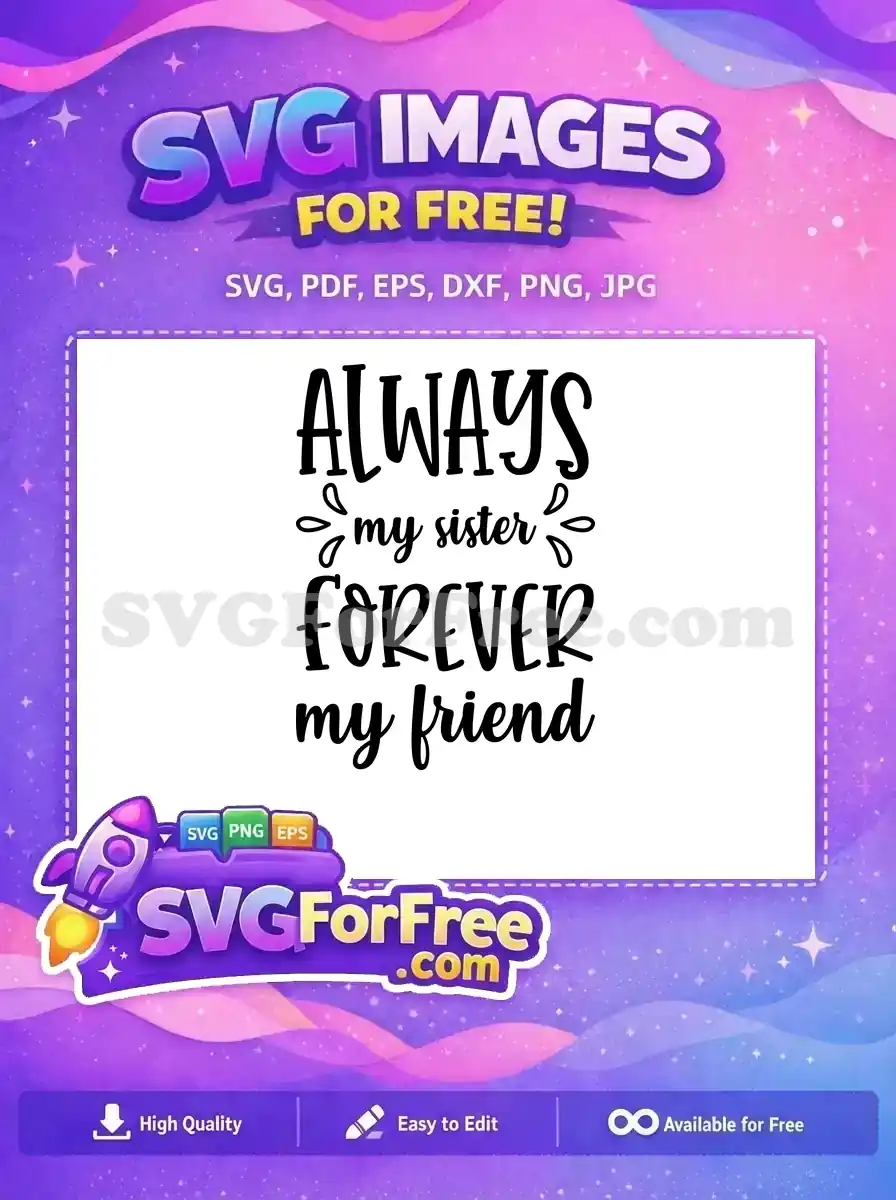
Free Black Script Font Free Sister Friend Quote Family Quotes Free SVG – Instant Download
Script quote ‘ALWAYS my sister FOREVER my friend’ with hearts, free sibling vector.
Free Black Script Font Free Sister Friend Quote Family Quotes Free SVG